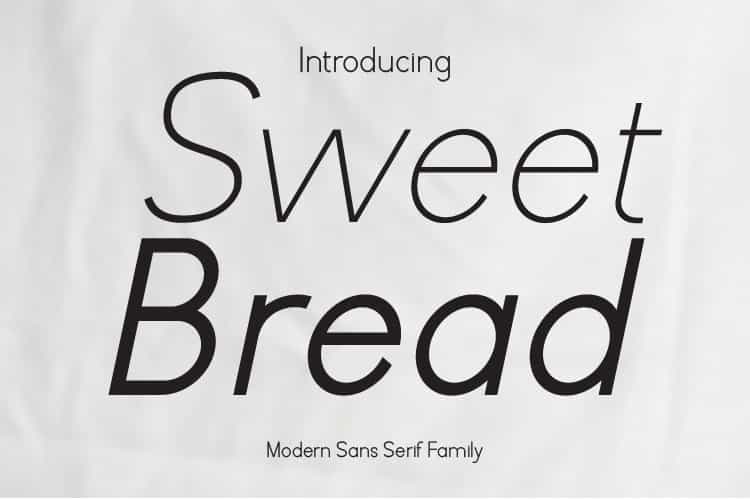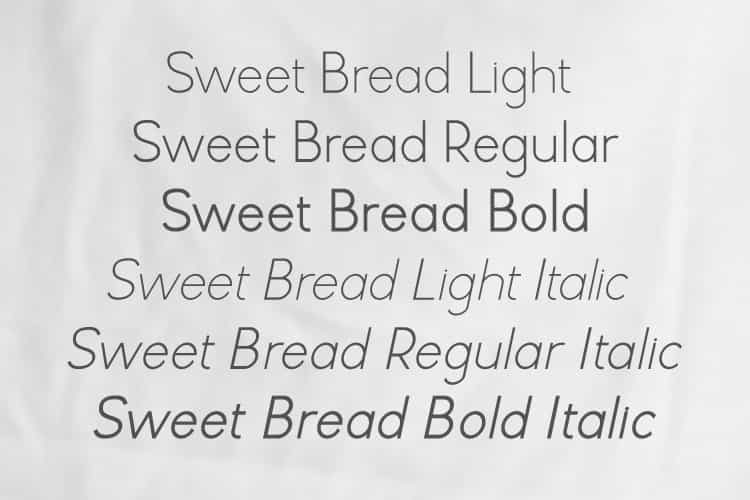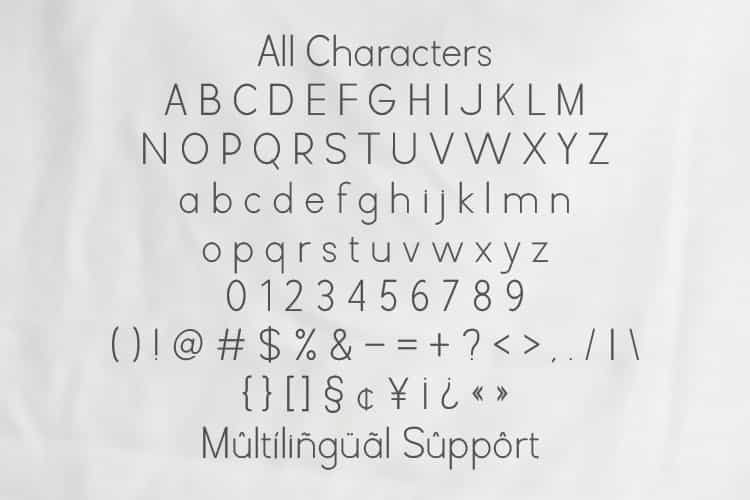
Sweet Bread is an elegant sans serif font designed to stand out. Perfect for branding purposes, invitations, stationery designs, wedding designs, social media posts and much more, its sleek look is ideal for branding purposes, logo designs, invitations and stationery designs as well as social media posts.